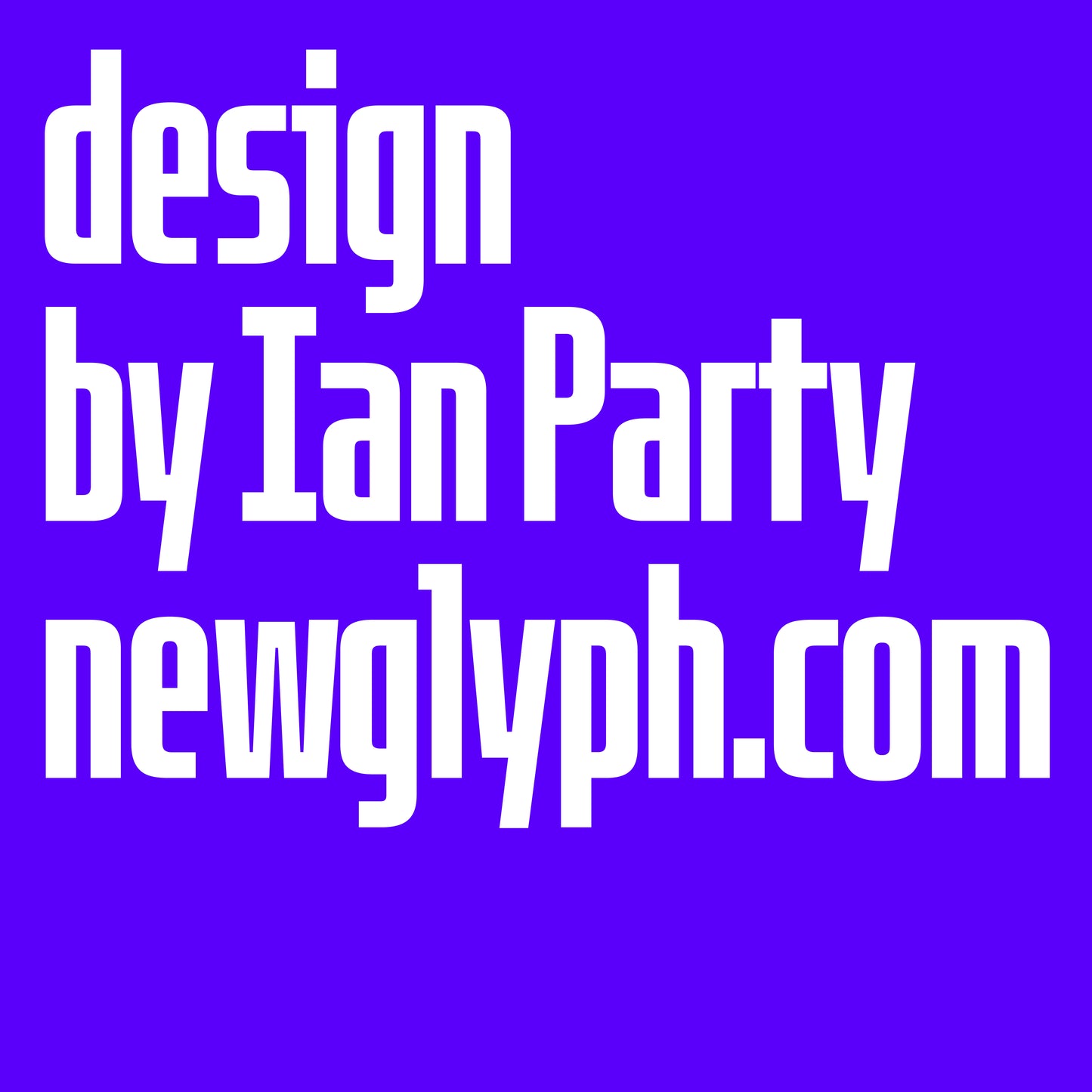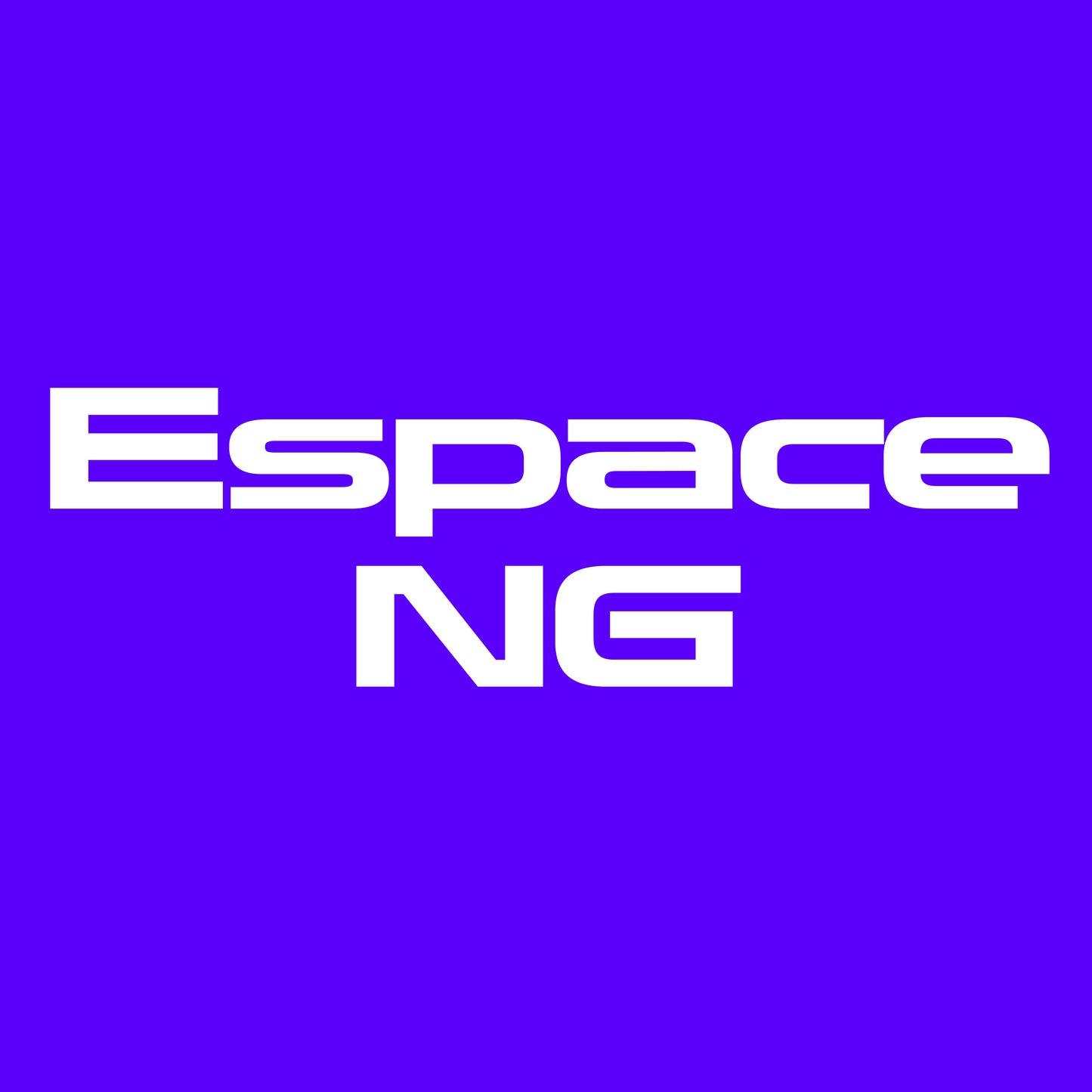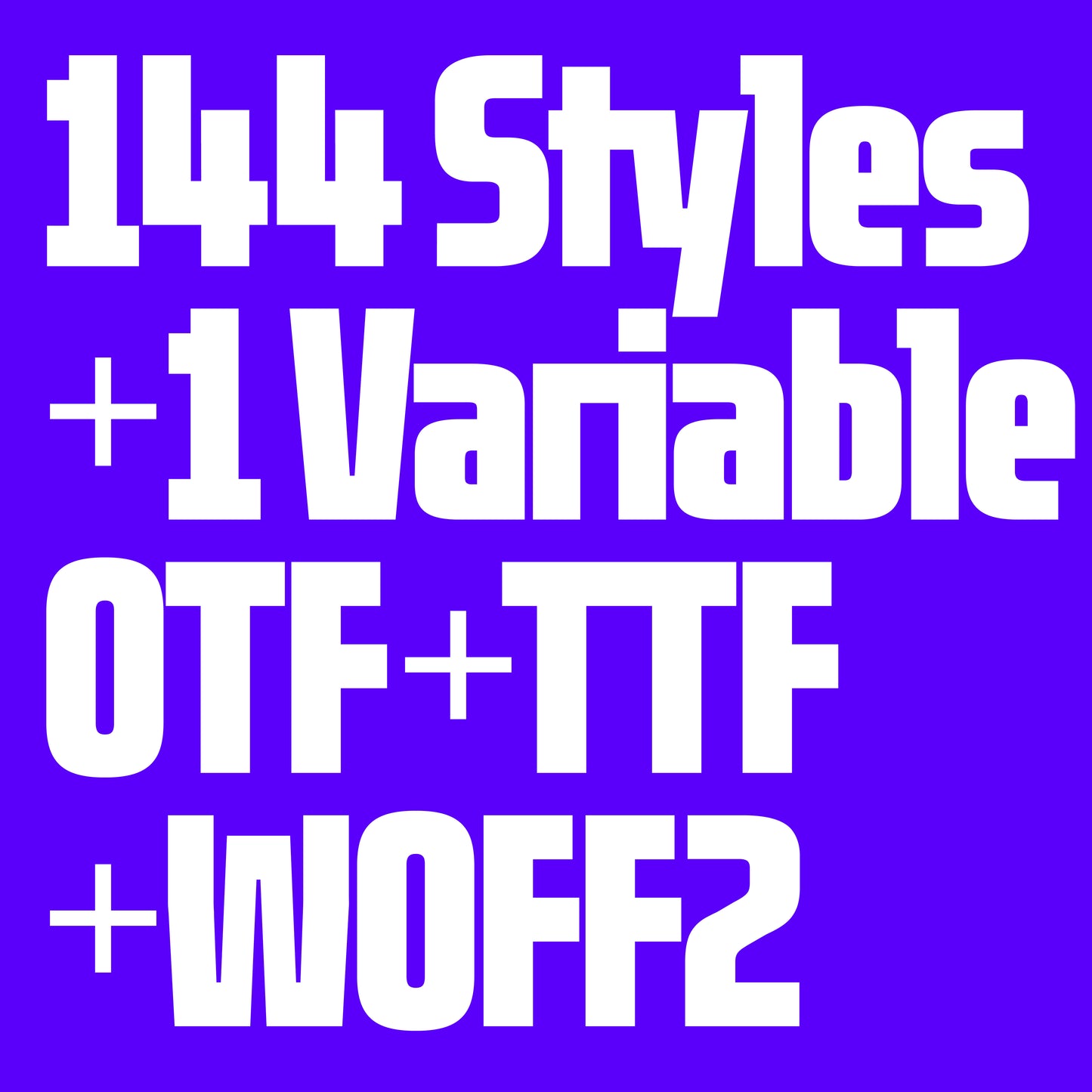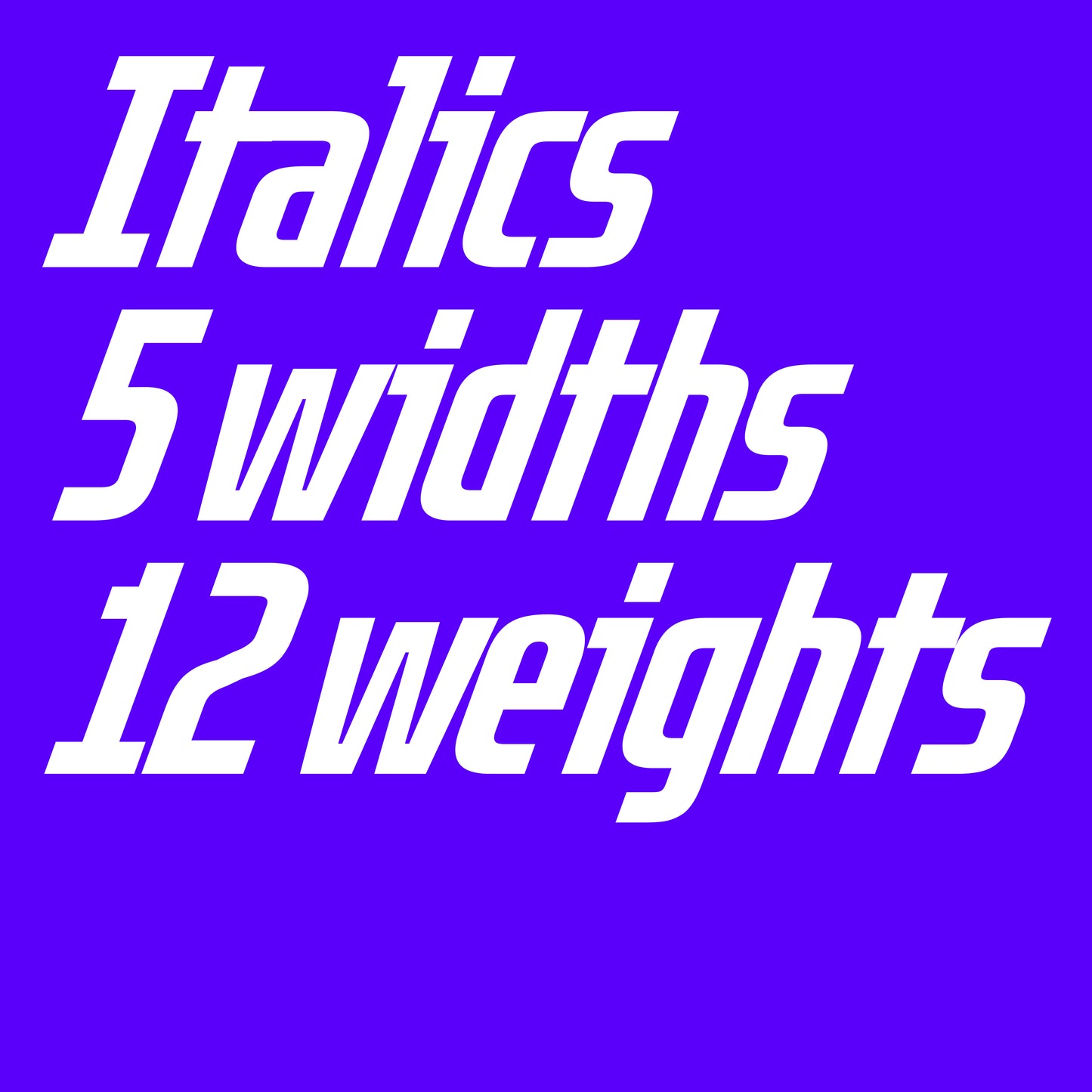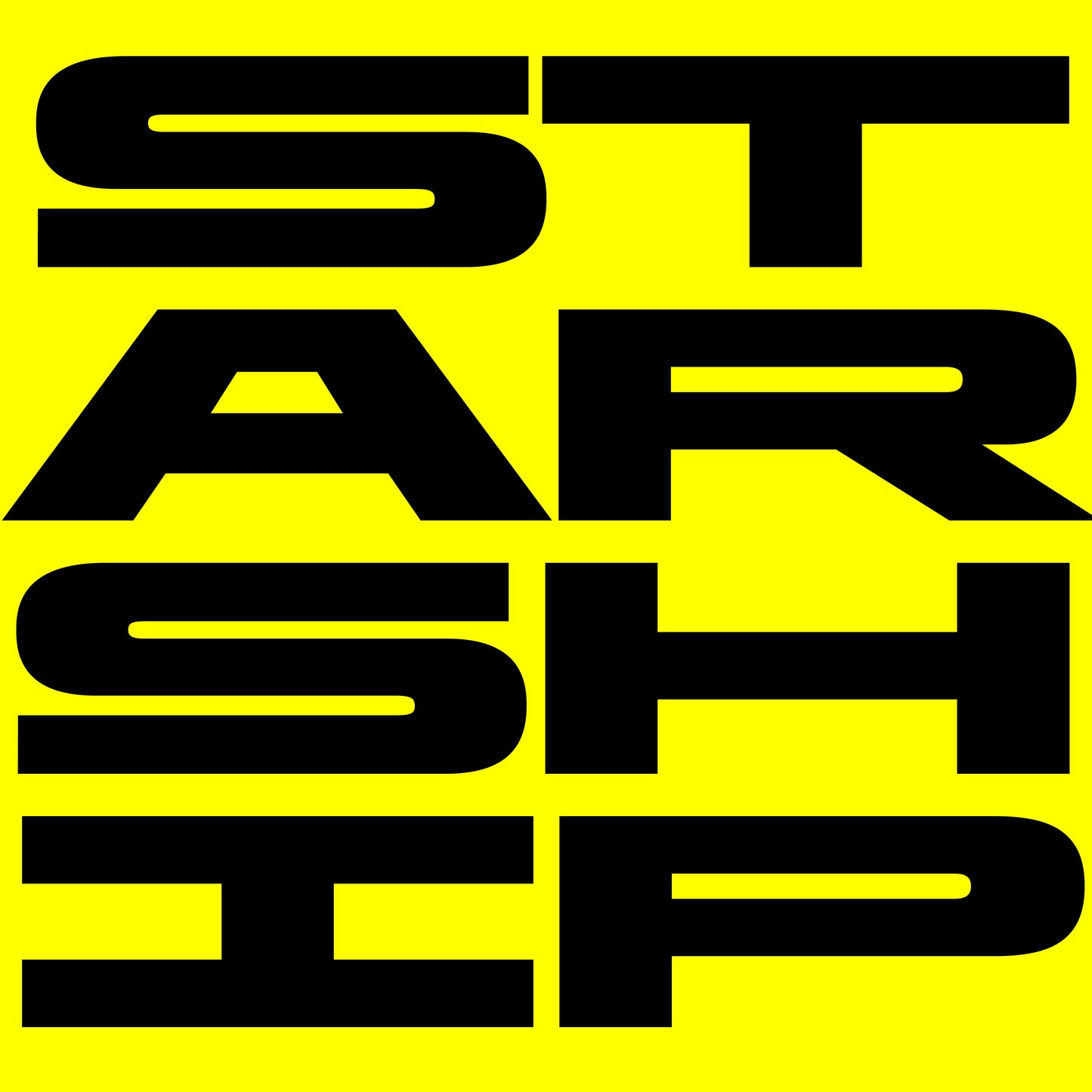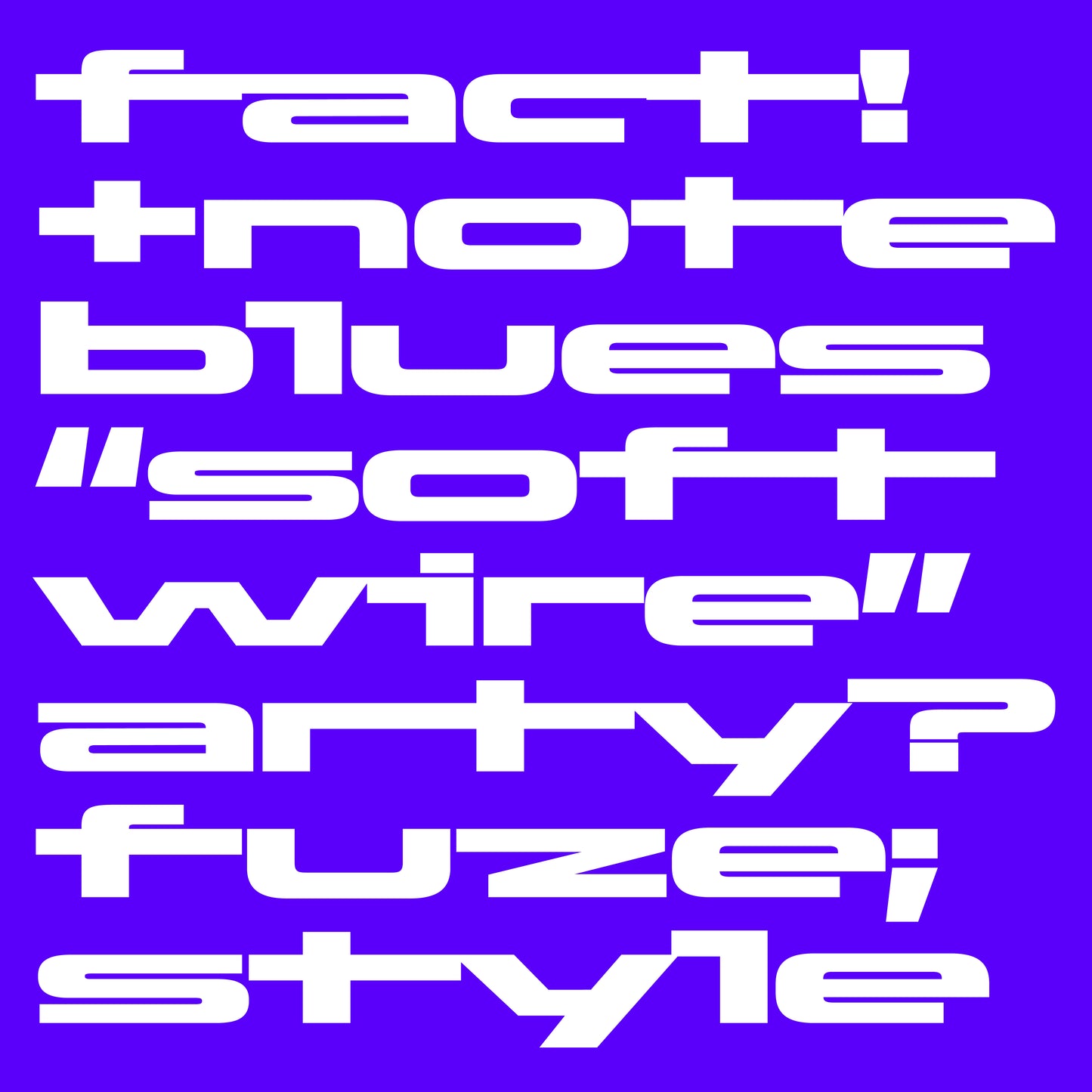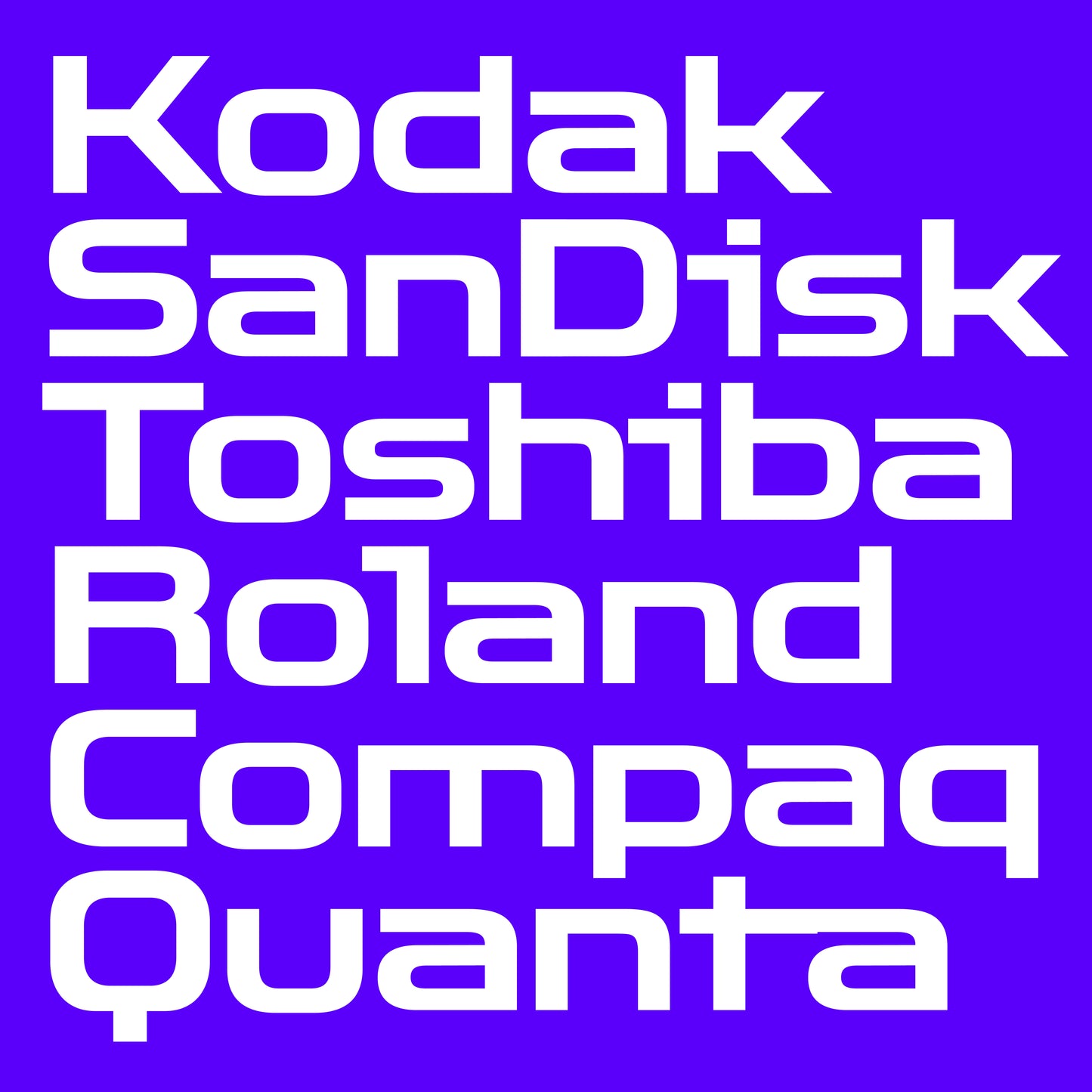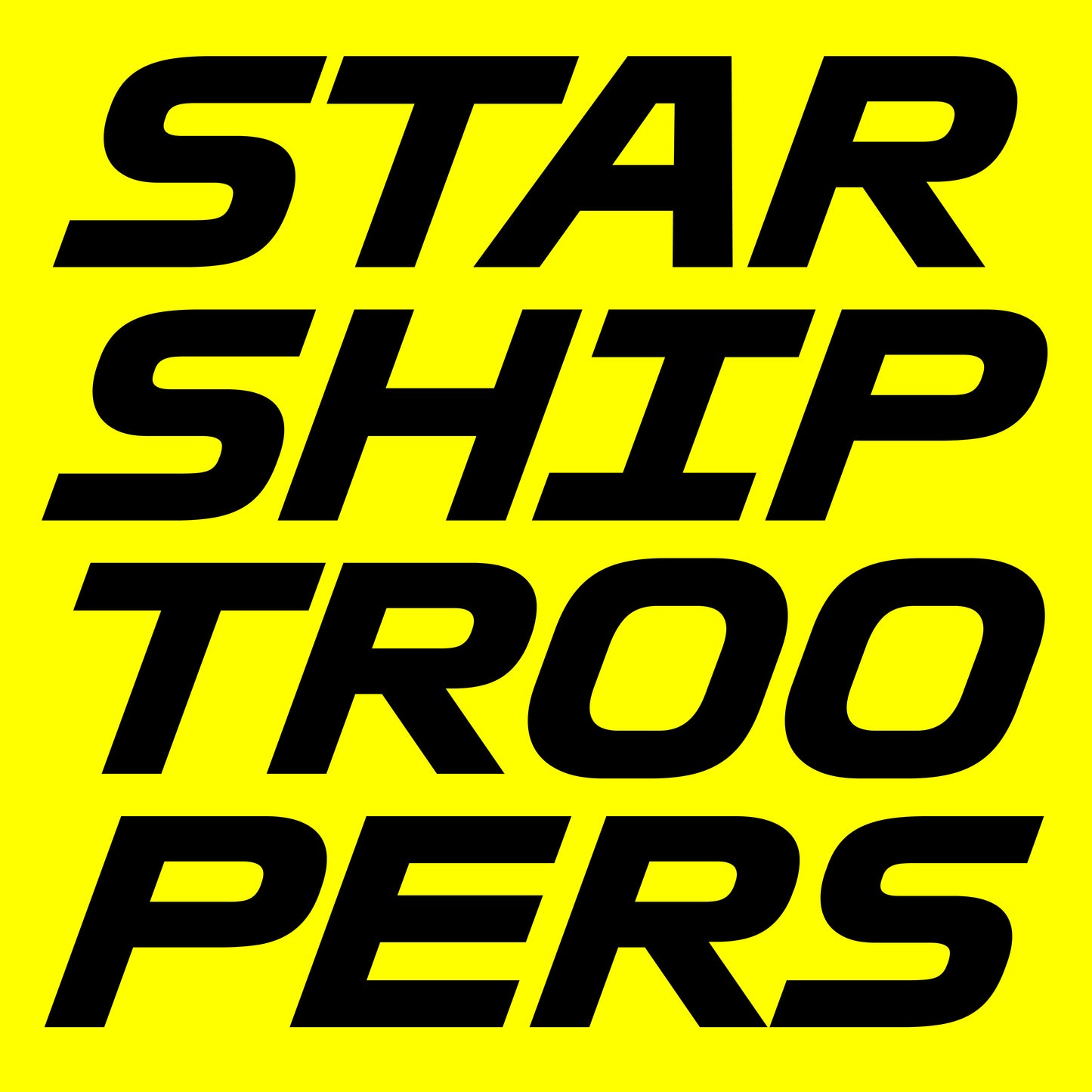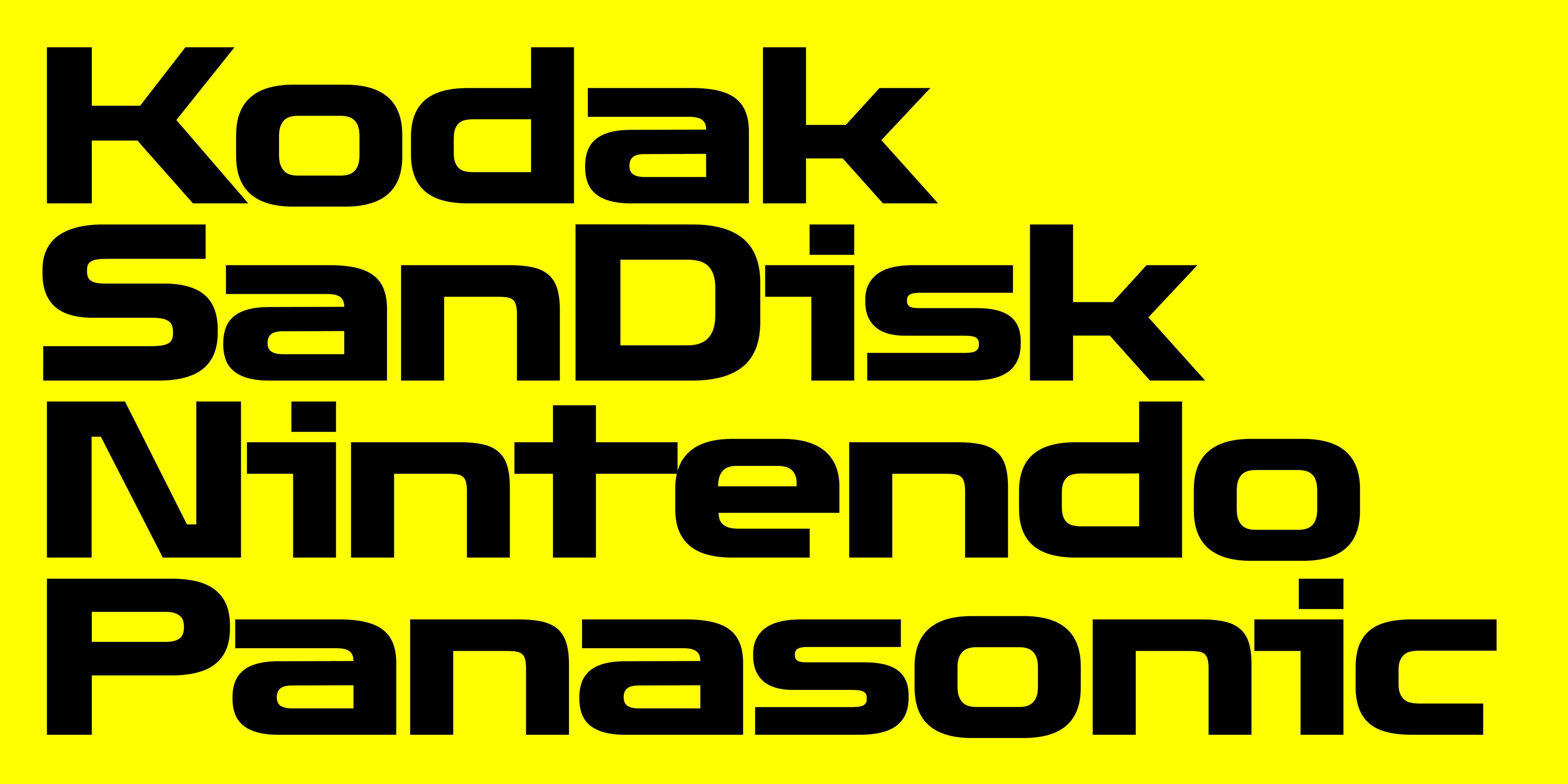
Espace NG
Espace NG,  designed by Ian Party, is a modern variable font that embraces the purity and precision of Neo-Grotesque design while evoking the vastness and elegance of outer space. Inspired by the minimalist Swiss typography of the mid-20th century, this typeface refines the clarity and functionality of early grotesques, creating a balance between geometric precision and humanist warmth.
Much like the cosmos, Espace NG is expansive and adaptable. Its variable weight range allows designers to fine-tune its presence, from ultra-light, airy compositions to bold, high-impact statements. With clean lines, controlled proportions, and subtle details, it embodies the timeless appeal of sans-serif typography while projecting a futuristic aesthetic.
Designed for branding, editorial, and digital applications, Espace NG is a versatile tool that thrives in high-contrast, modern layouts. Whether used for sleek corporate identities or experimental typographic exploration, this typeface remains effortlessly sophisticated—like stardust scattered across the universe.
— ITALICS
— REGULAR, CONDENSED, EXTENDED STYLES
— PUNCTUATION & SYMBOLS
— DIACRITICS & LIGATURES